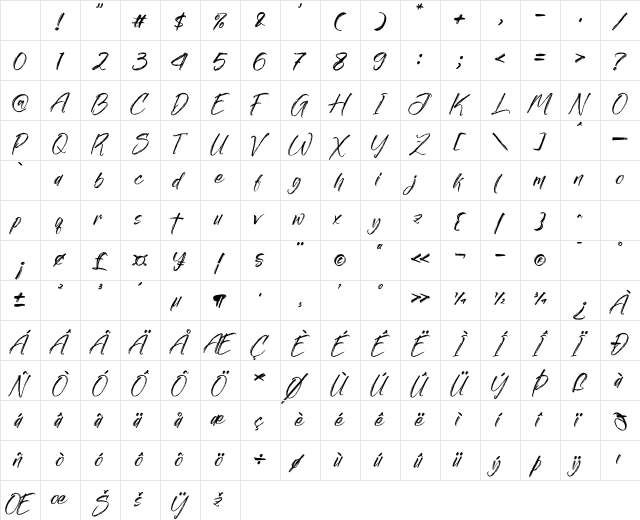
Complete Calderyon Regular glyph index. Displaying only characters natively supported by Calderyon Regular font.
Calderyon is a composed and adaptable typeface that performs quietly and consistently across a wide range of design contexts.